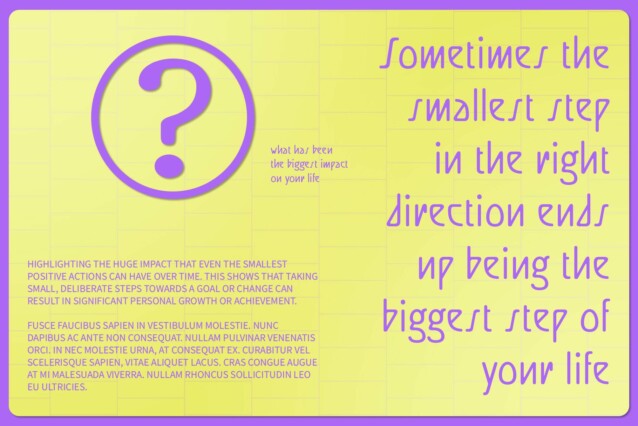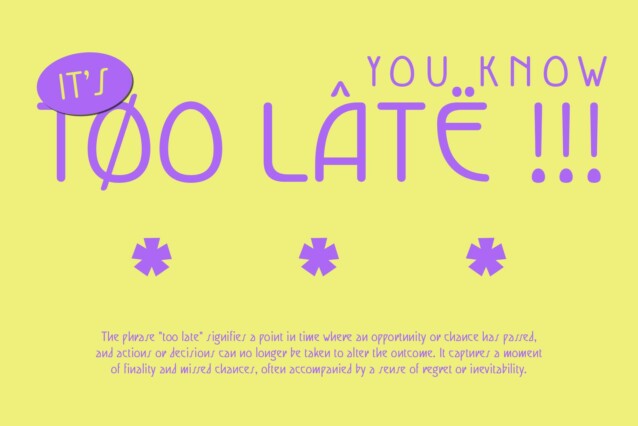
Jacelon Rounded Font
Jacelon Rounded Font is a modern display sans-serif font that masterfully combines Art Deco elegance with a warm, rounded design. The bold geometric forms characteristic of the Art Deco style infuse the font with a sense of luxury and sophistication, while the soft, rounded edges introduce a friendly, approachable touch.